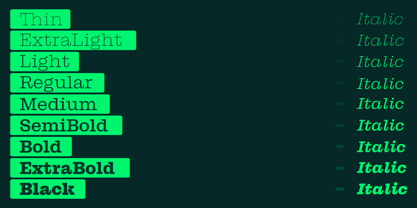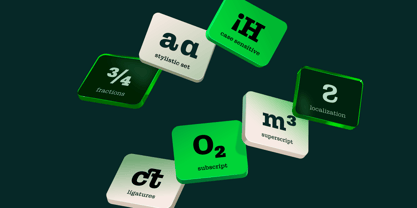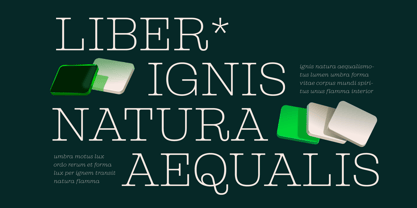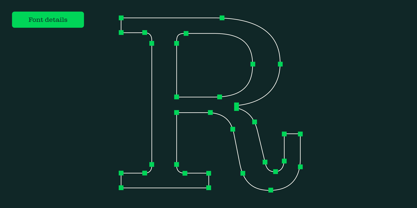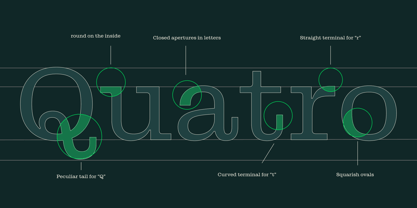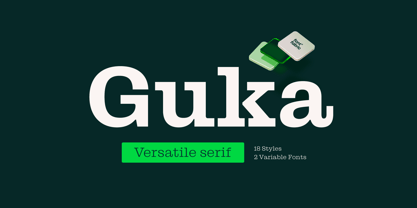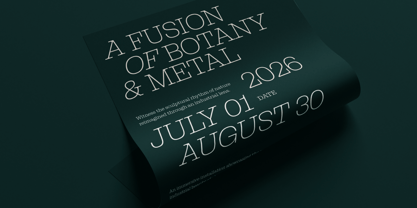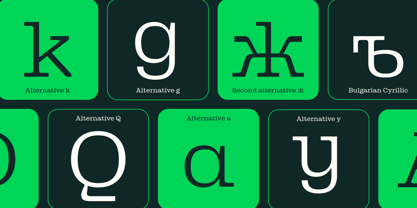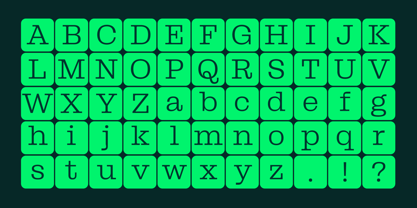
Guka
Die Schriftfamilie Guka wurde von Svetoslav Simov, Vika Usmanova, Trifon Andreev entworfen und von Fontfabric veröffentlicht. Guka enthält 20 Stile und Familienpaketoptionen. Mehr über diese Familie
Guka is a contemporary slab serif that brings the sturdy, confident character of classic
Clarendon and Ionic typefaces into a more modern, industrial design language. Its distinctive
geometrical terminals, sculptural details, and expressive letterforms give it a strong visual
identity that helps brands and designs stand out while maintaining a structured, cohesive
appearance.
With 18 styles, italics, stylistic sets, and multilingual support, Guka offers the
flexibility to handle a wide range of typographic applications. Its multiple weights make it
particularly effective for creating clear hierarchy, from bold headlines and campaign messages
to supporting text and structured brand communications. The family combines personality with
consistency, making it suitable for both expressive display typography and broader visual
identity systems.
Guka is especially well suited to branding and visual identity, where its recognizable forms can
create a distinctive and memorable brand voice. It is also a strong choice for packaging and
advertising, where bold, impactful typography needs to attract attention and communicate
confidently. In editorial design, posters, and campaigns, its industrial character adds presence to
headlines and prominent text. For digital applications, Guka can bring the same distinctive
personality to websites, digital campaigns, and branded content. It works particularly well for
industries and brands that want to communicate strength, confidence, craftsmanship, or a
contemporary industrial aesthetic, including fashion, lifestyle, food and beverage, retail,
publishing, and creative industries.
Choose Guka when you need a slab serif with strong character, practical versatility, and a
memorable visual presence.